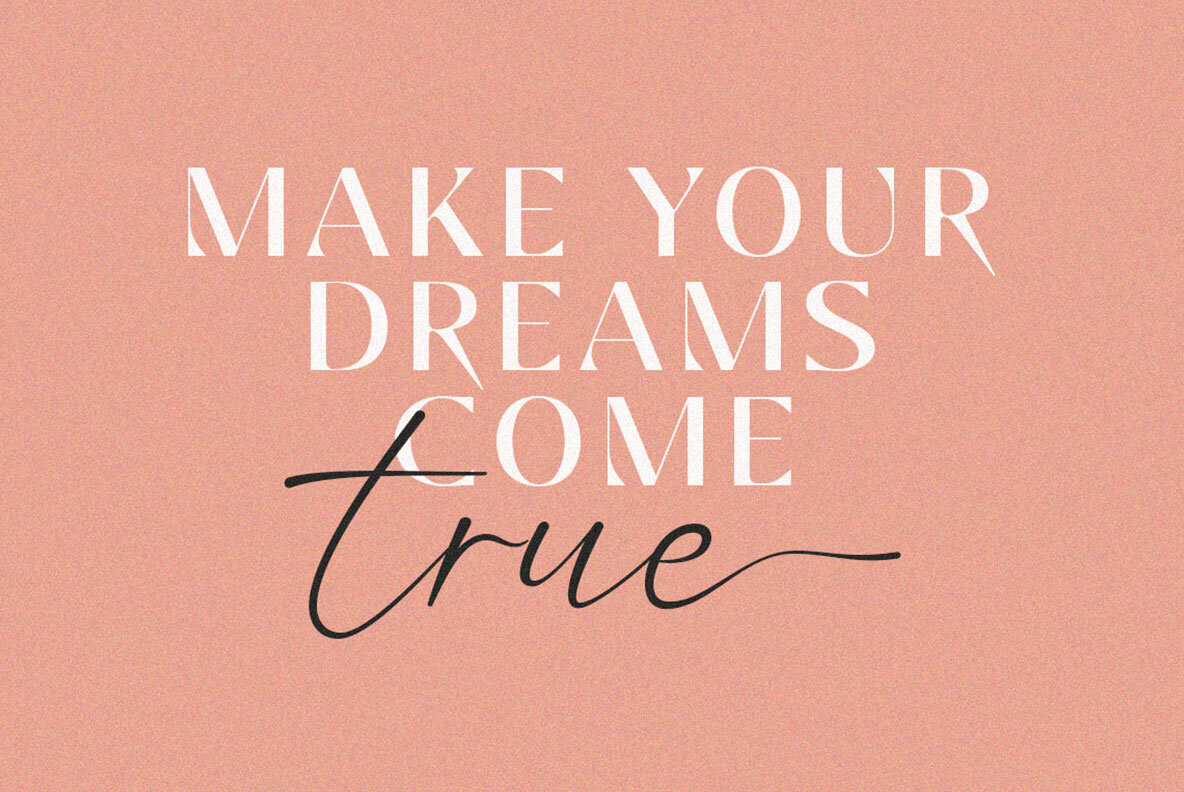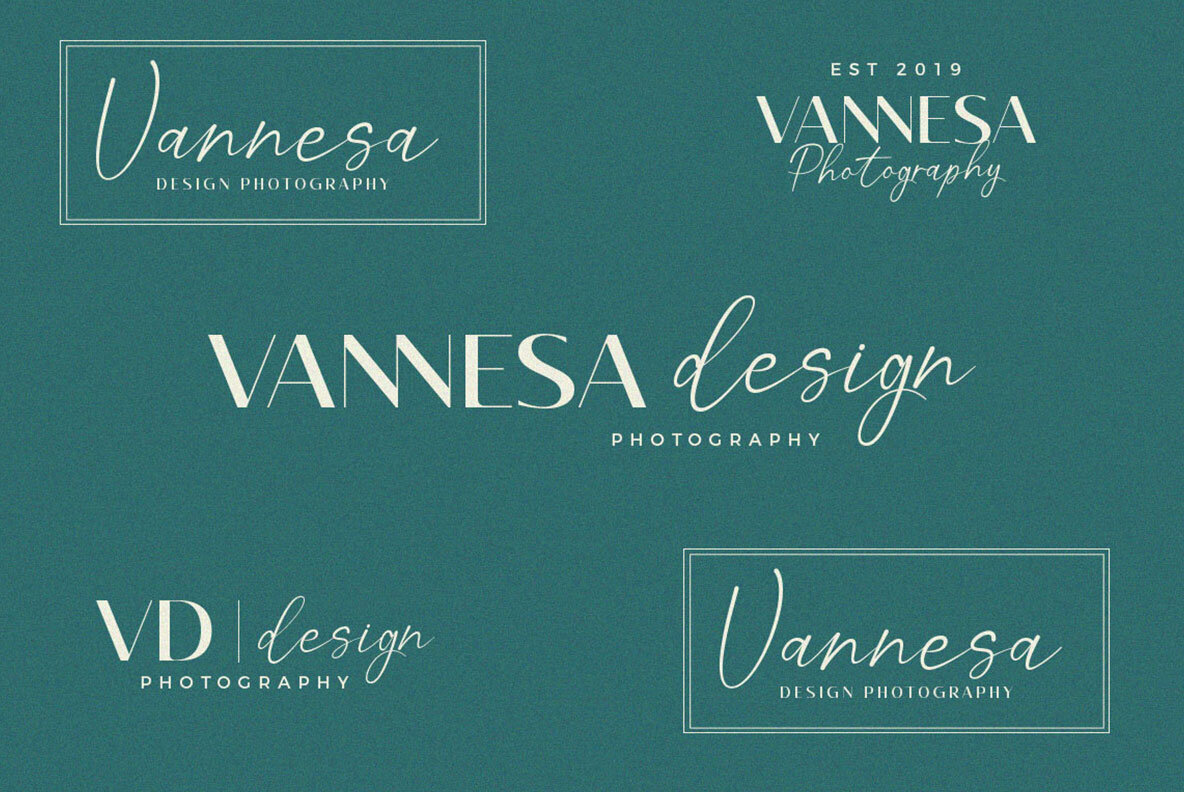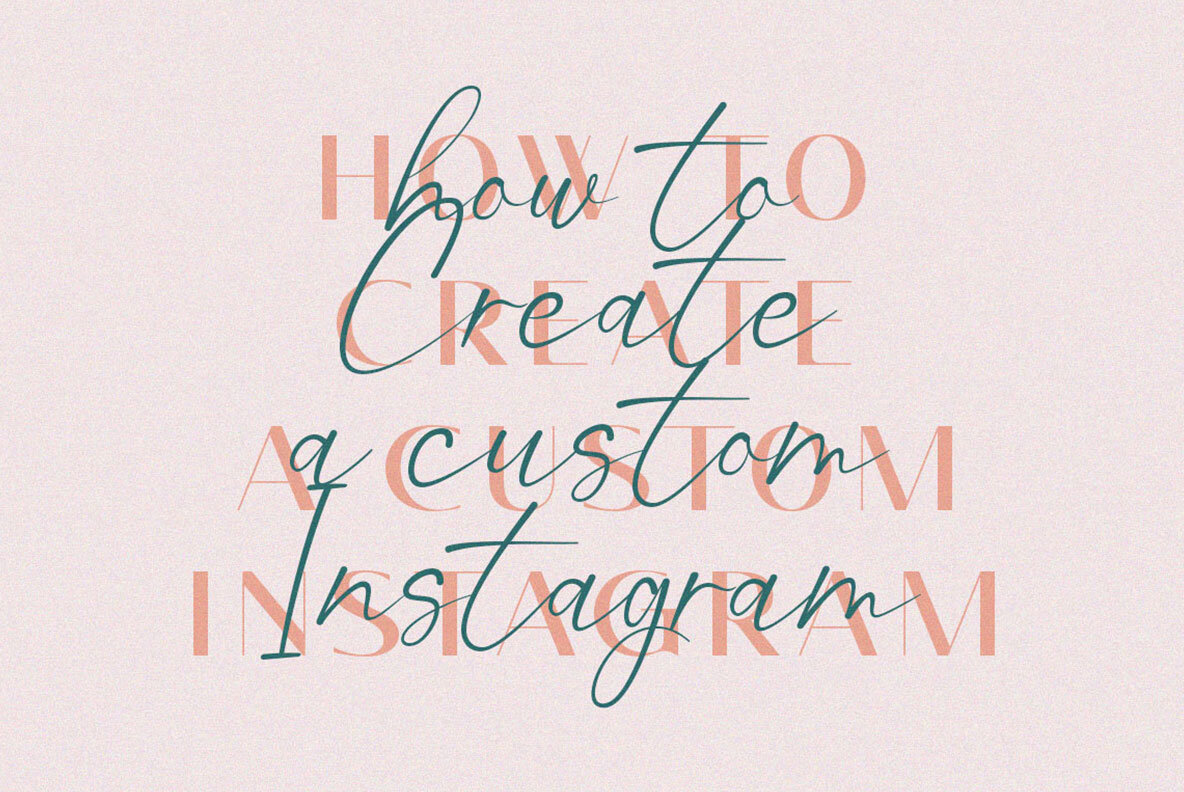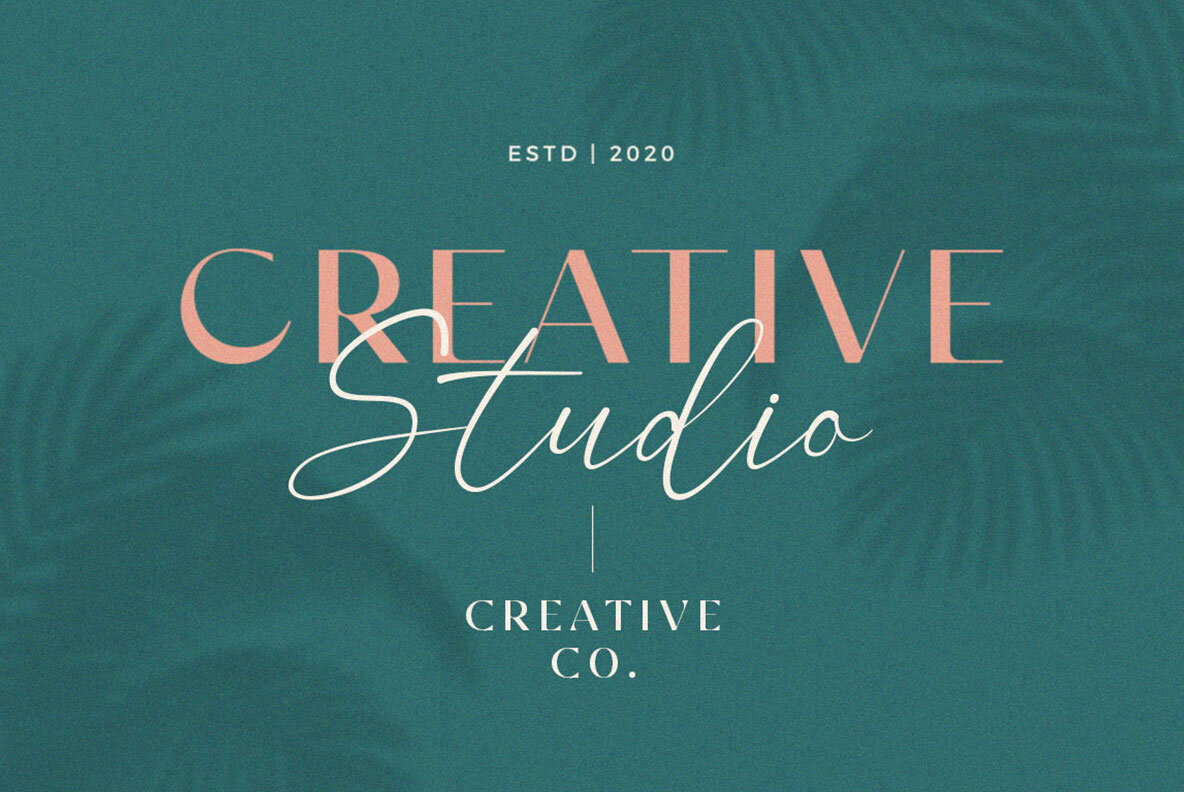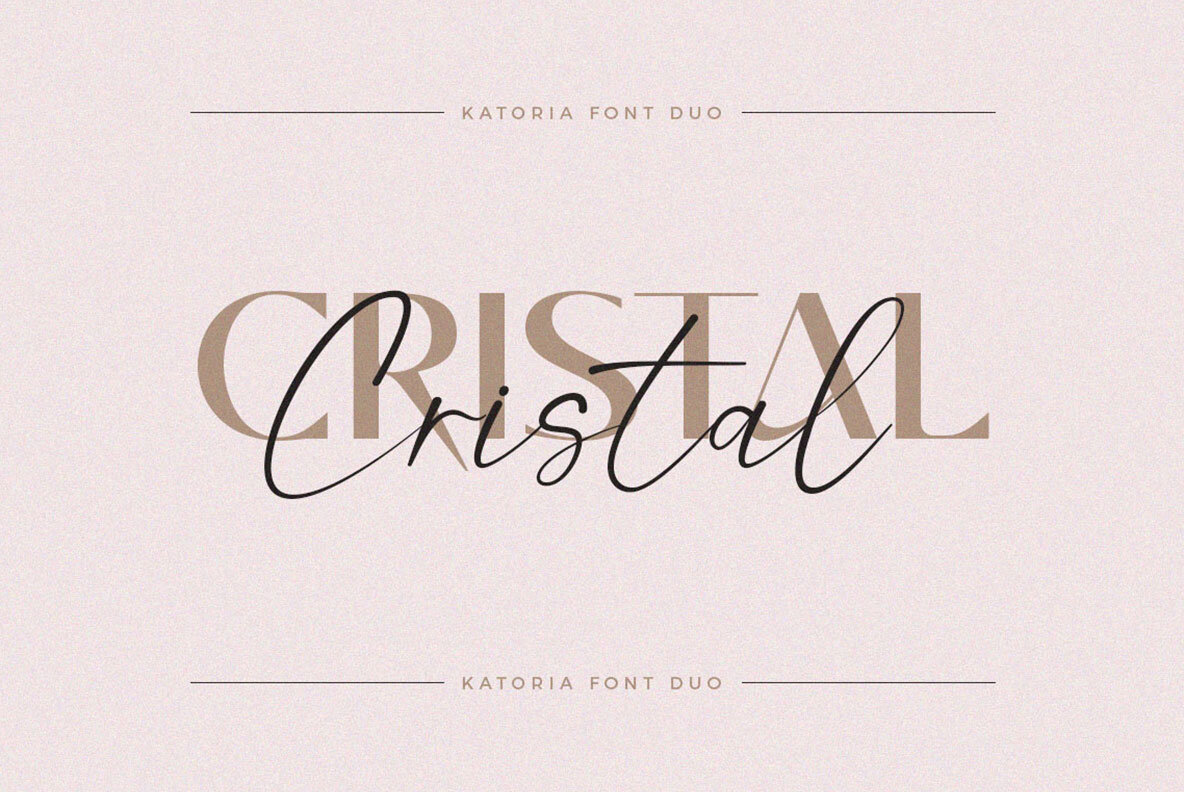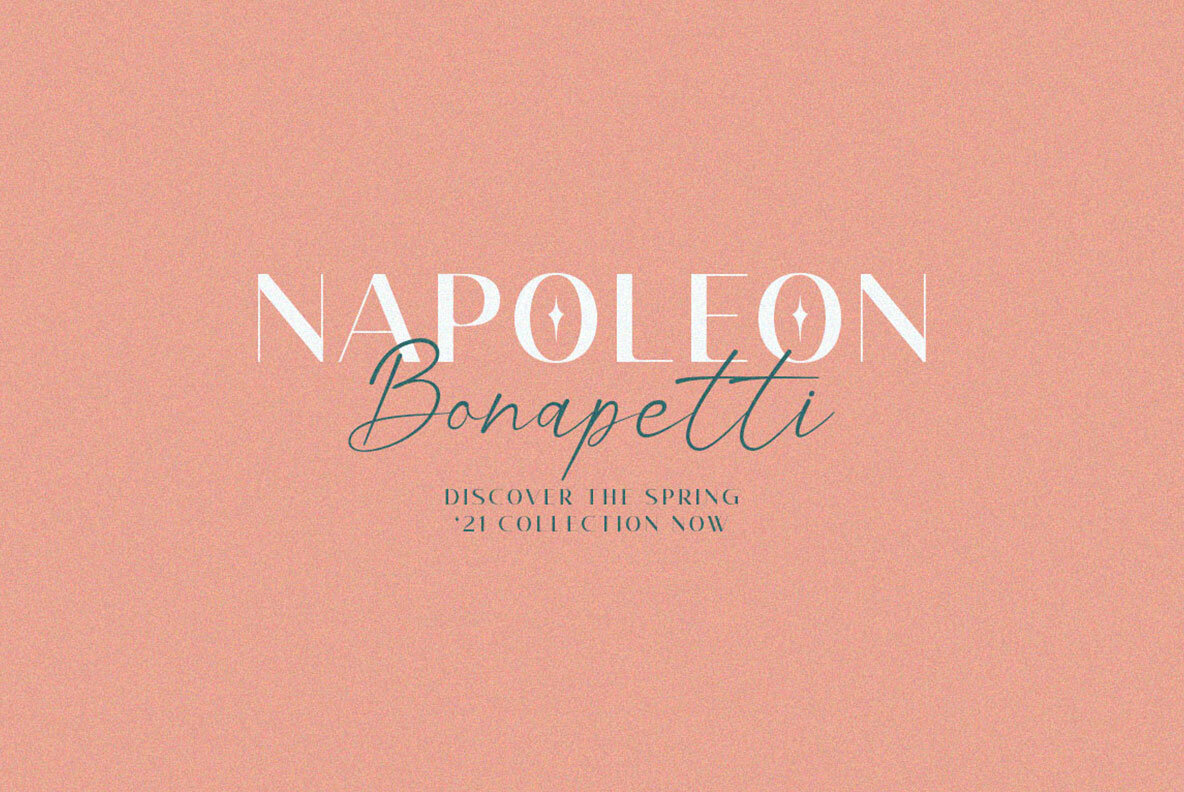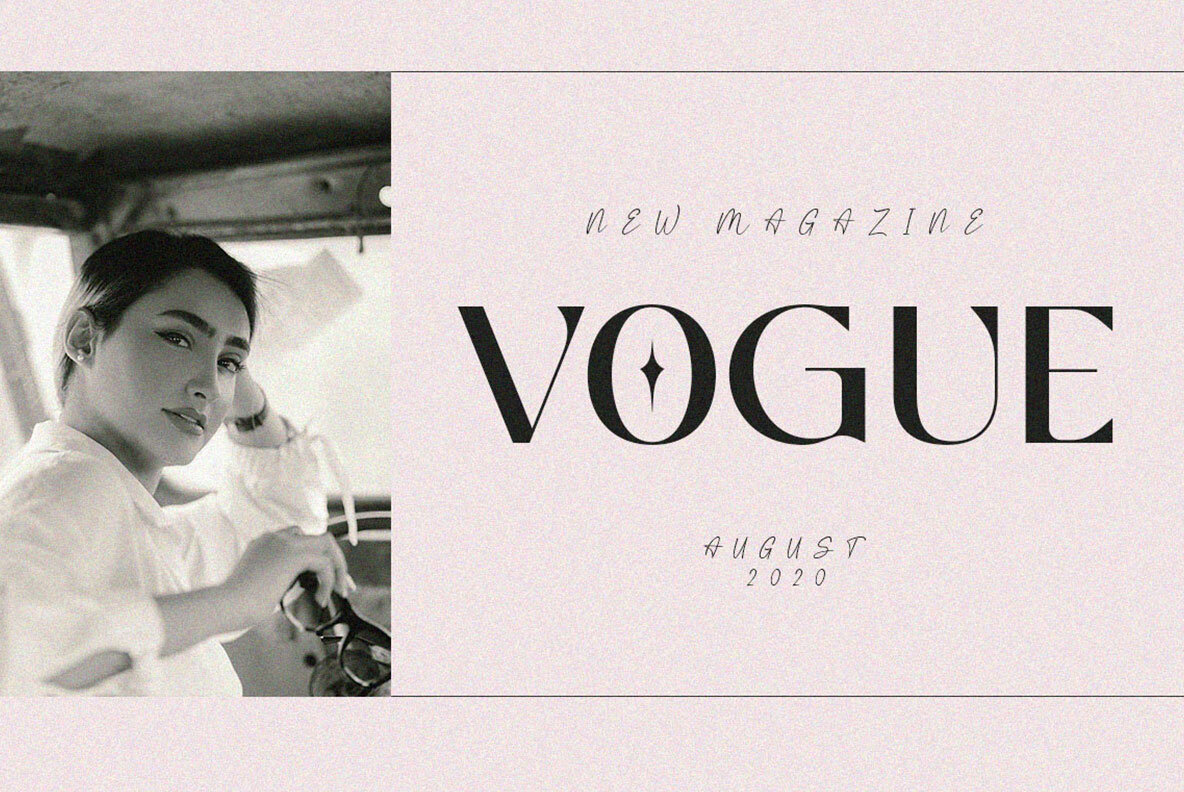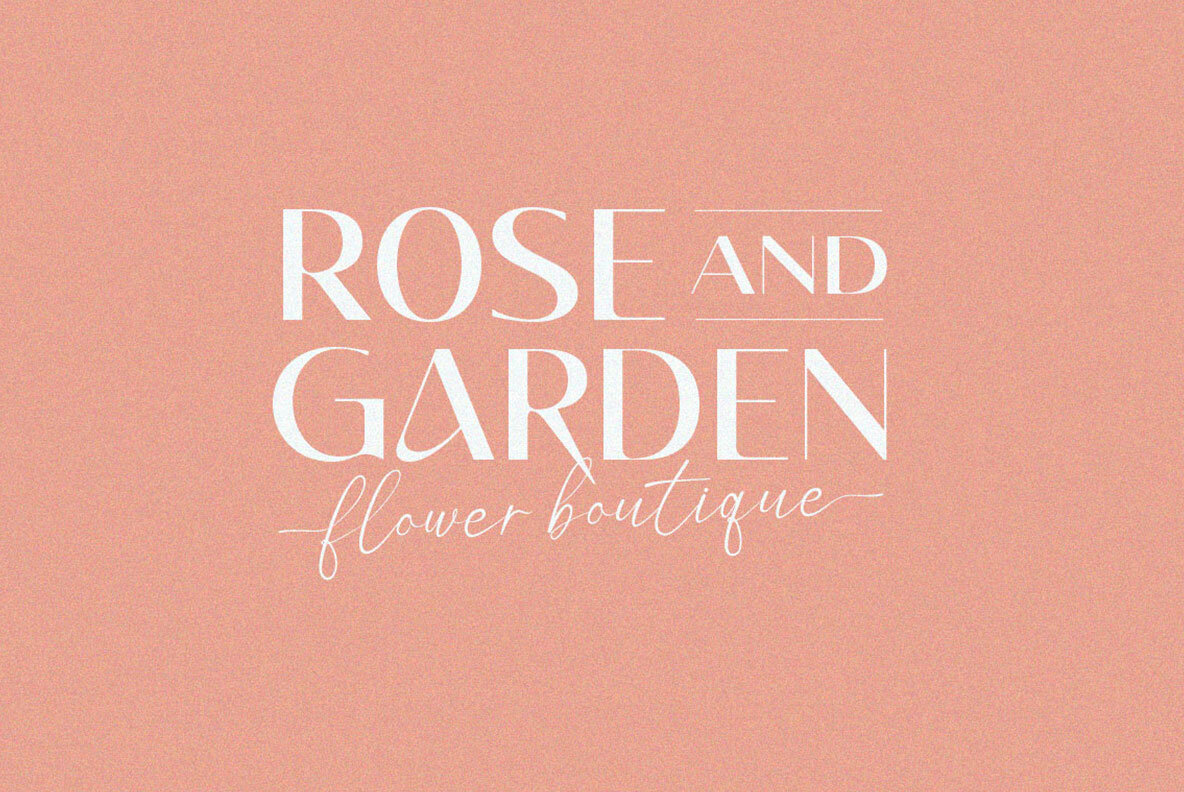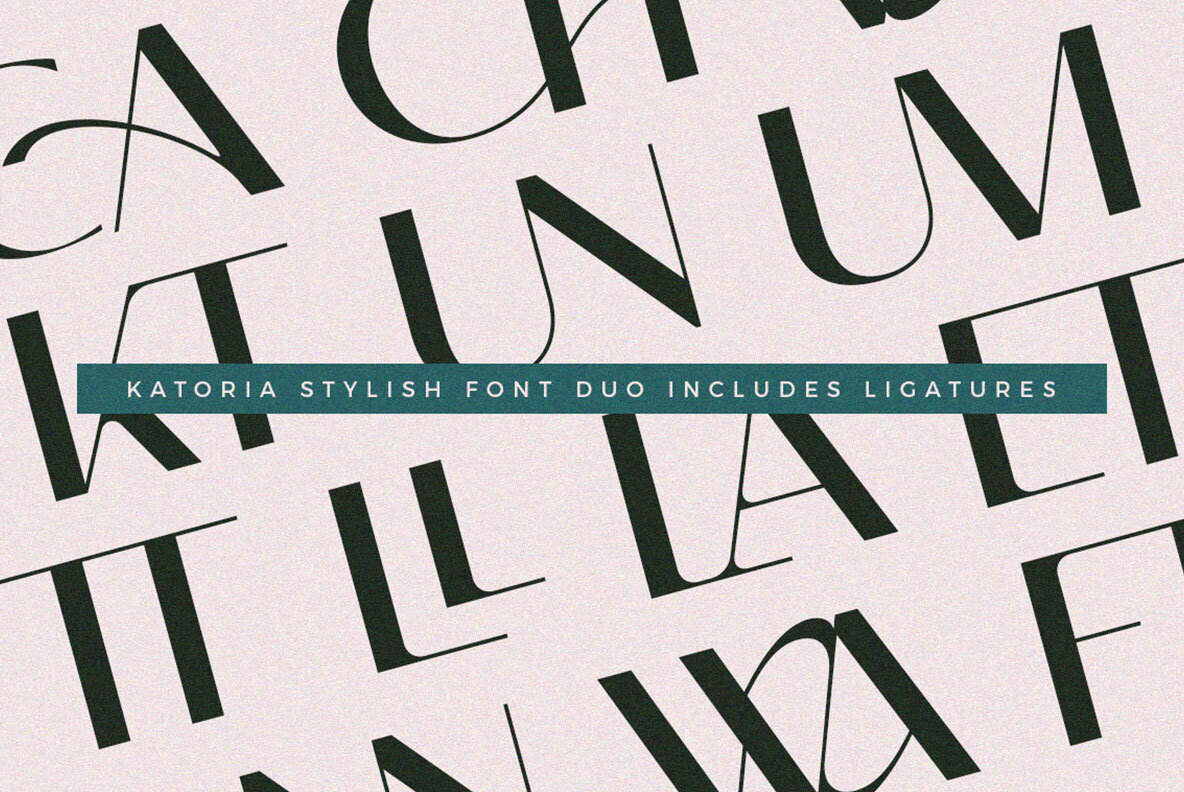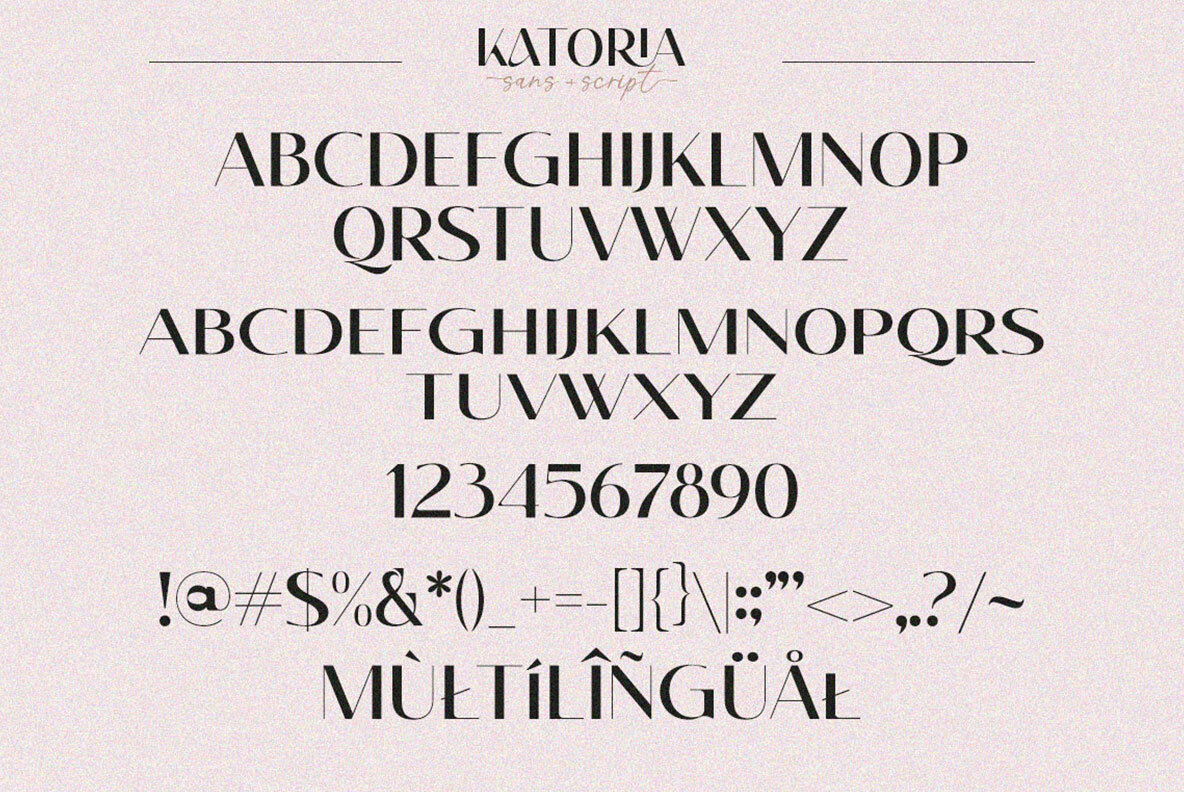
Katoria Font Duo
Introducing Katoria, a luxurious font duo with elegant combinations. Whether used as an addition or as the main font, it exudes sophistication. Featuring all uppercase letters, Katoria offers various ligatures and alternatives to create a unique design for your project. Explore the multitude of options perfect for logos, magazines, social media, and more. This user-friendly font is equipped with OpenType features, ensuring a seamless experience. Katoria is the result of true love and aims to make your creative journey easy and enjoyable.